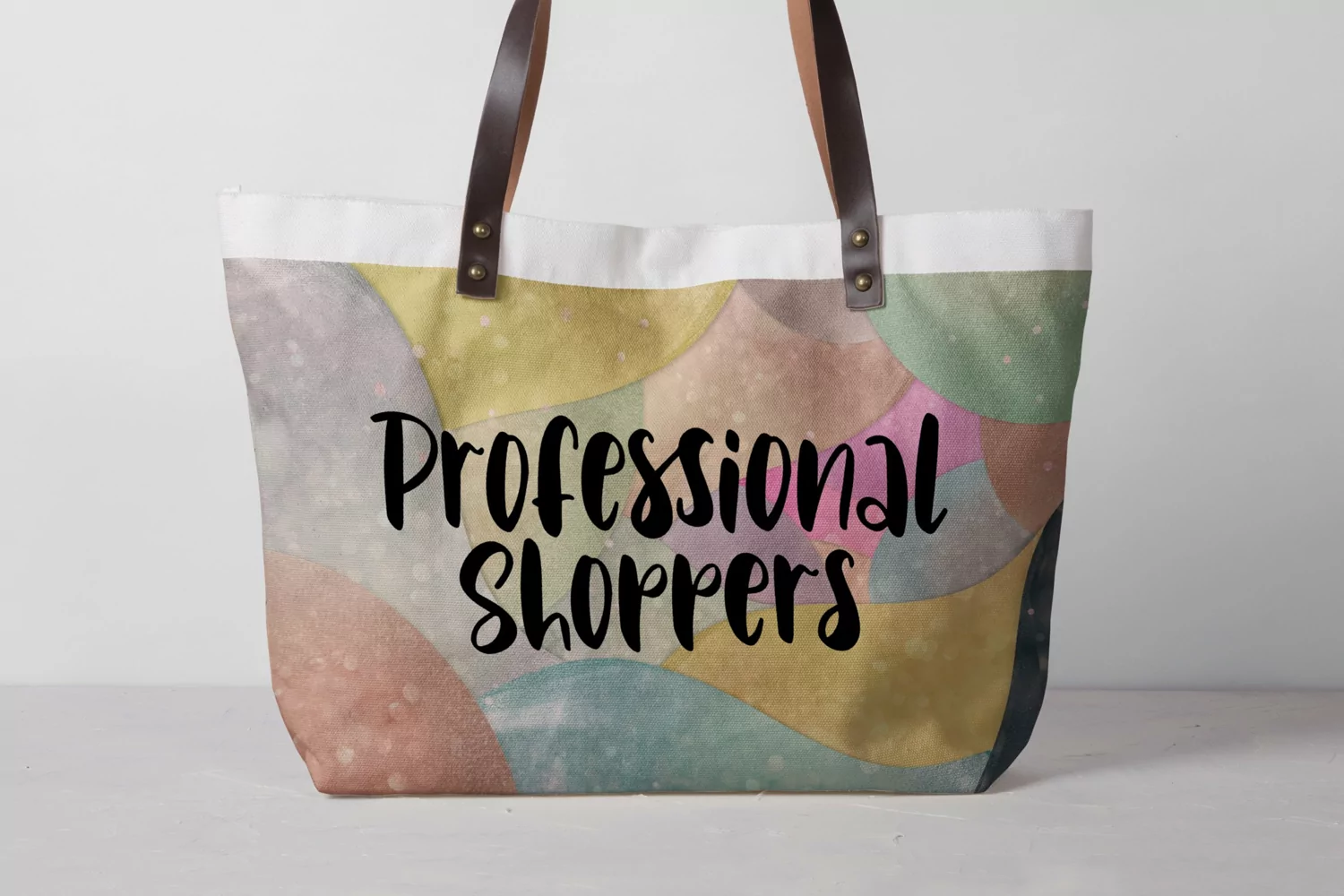
Aghnie - Handlettering Font that contain lowercase, uppercase, symbol, and also support multi language. There’s a lot ligatures in this font. This Font also comes with ligatures, alternates and many more. this font suitable for fashion, branding, catalog and other design what you want.